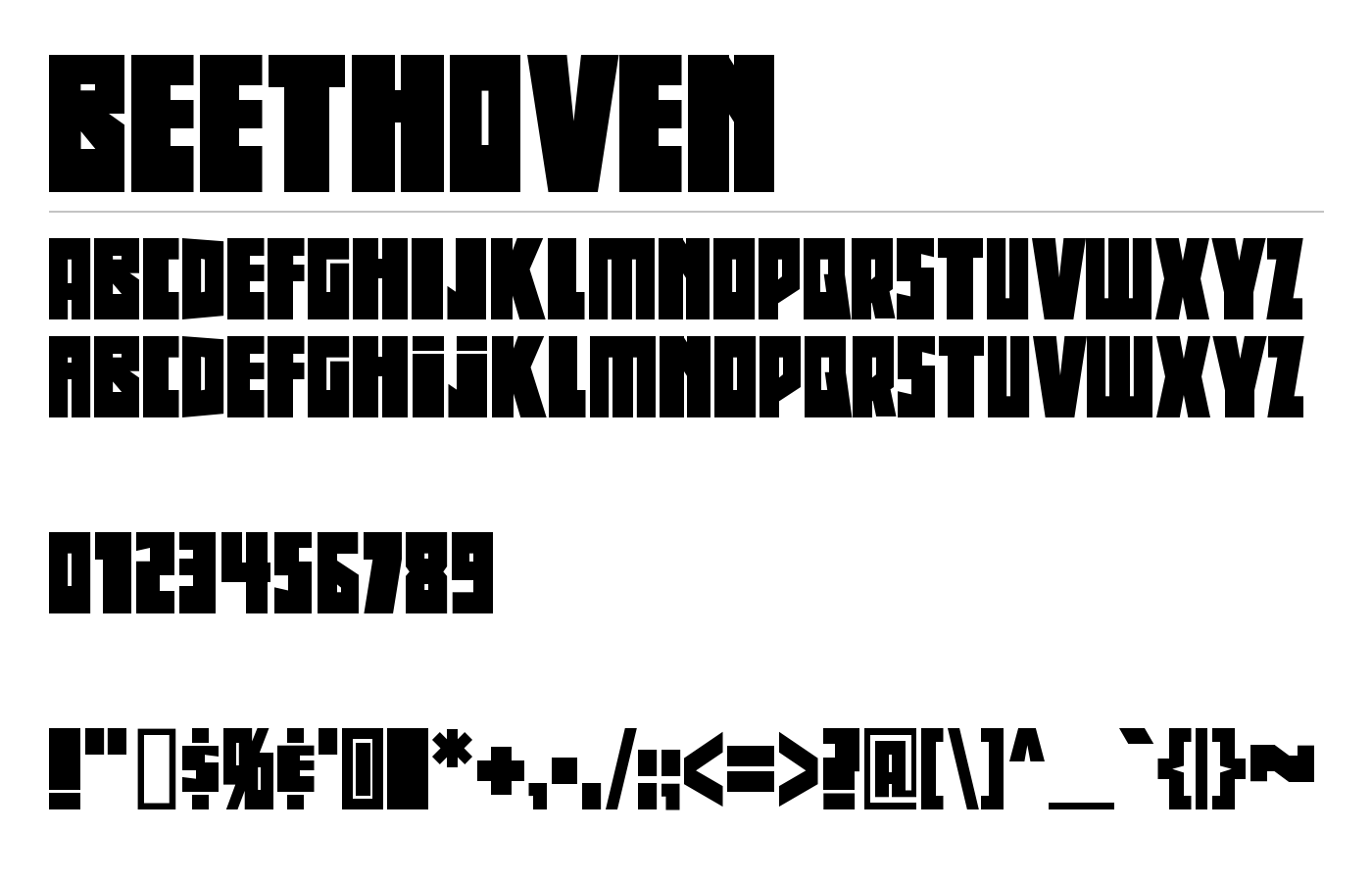
Beethoven Font is a bold, condensed sans serif typeface characterized by its strong, blocky letterforms with sharp angles and thick strokes. Its modern, geometric style creates a powerful and impactful presence, making it ideal for headlines, logos, and branding that require a striking, confident look. This font works best in contexts where bold visibility and a dynamic, edgy vibe are desired.
Beethoven Font